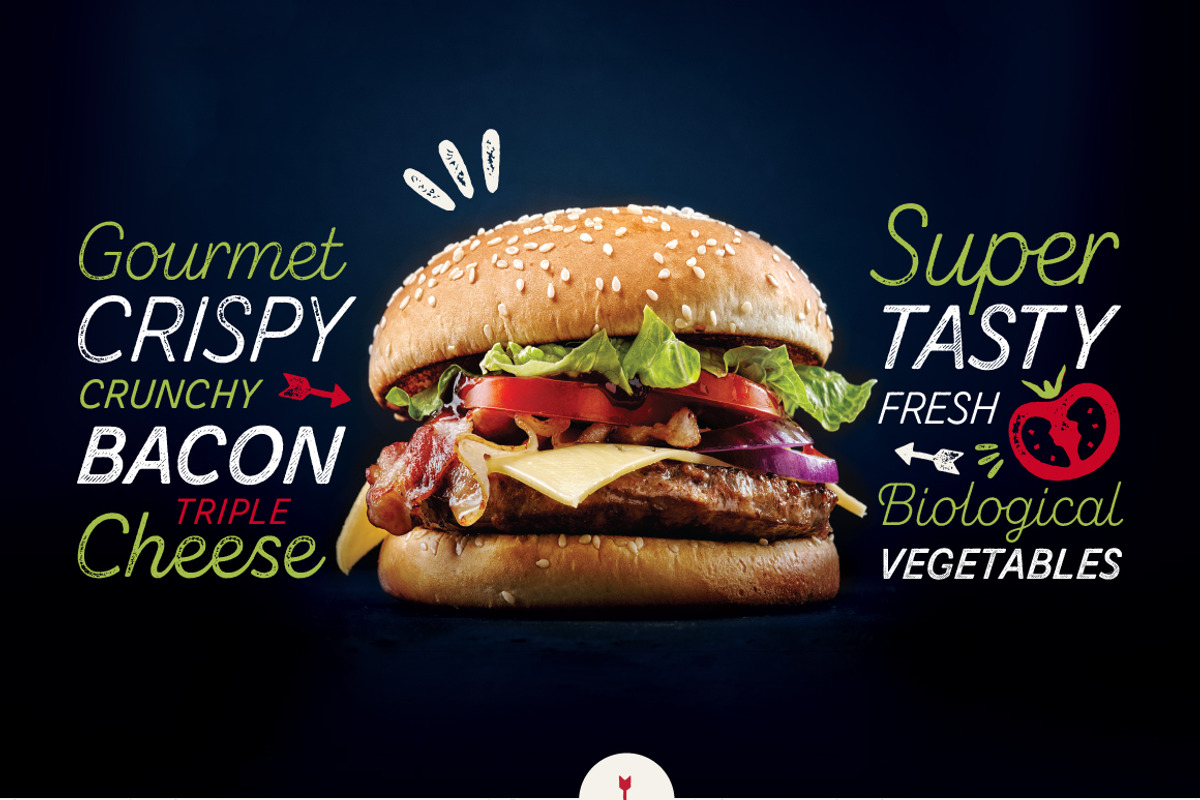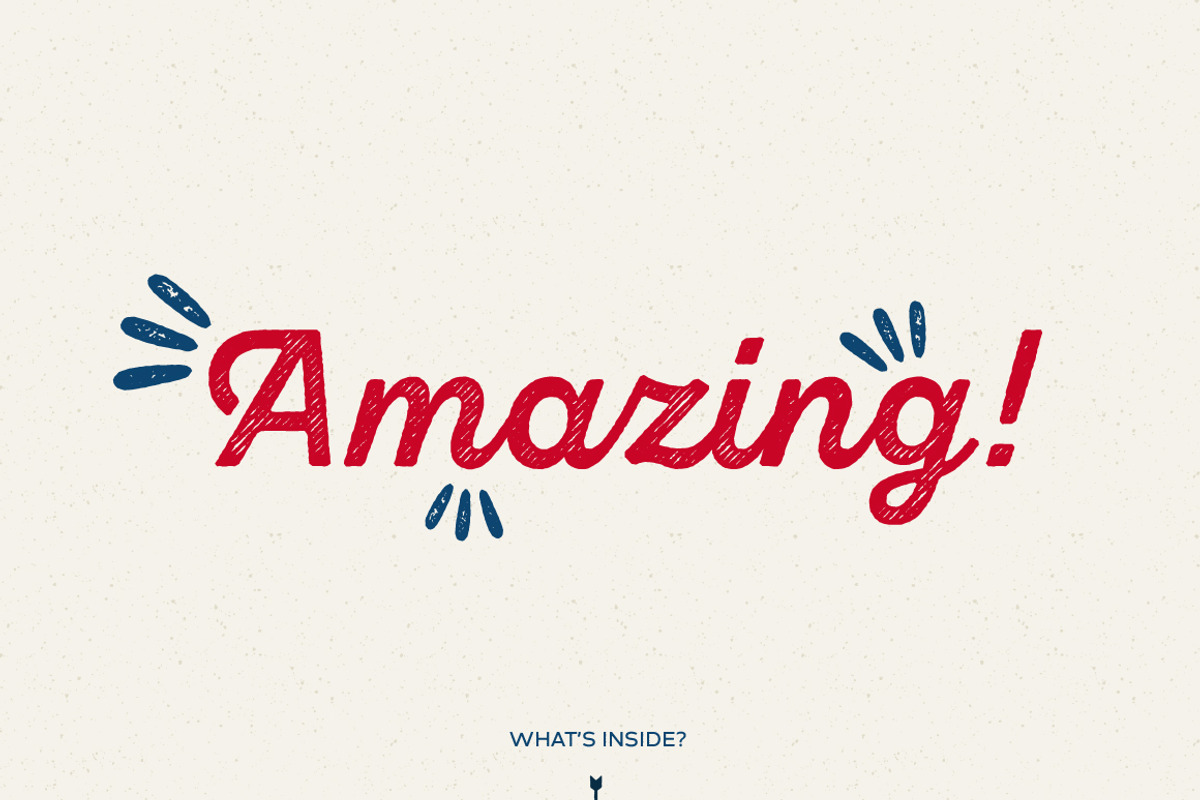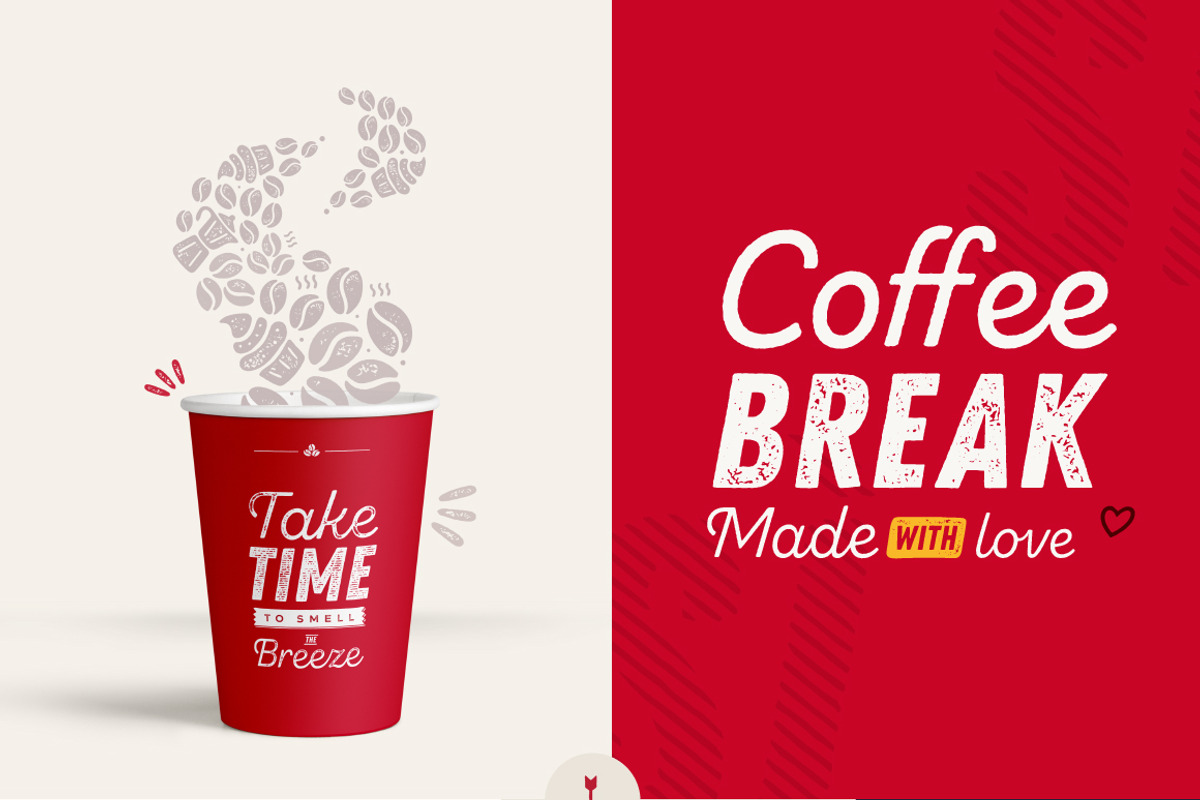
Zing Script Rust
Zing Script Rust™ is a type system consisted of 37 fonts. This incredible font family has 5 different weights and three different texture effects which makes it perfect for setting great layouts, headlines, logotypes. The bundle consists two subfamilies - the main font Zing Script Rust and extras - icons, banners and words - Zing Goodies.
• Zing Script Rust™ is created to add extra vitalness in your designs, highlighting it’s unique charm. It is being fully programmed with OpenType features—including the smart Contextual Alternatives, Swashes and Standard Ligatures —in order to visualize the characteristics of a true script.
• As a dessert we serve you Zing Goodies™ that tops off the whole package, making it the extraordinary delicacy! It has 4 basic forms—Bakery, BBQ, Banners and Words—with two styles each, which contain plenty of adorable icons for any food and taste, elaborated banners, ribbons and ornaments, and even beautiful selection of useful words accentuating your design.